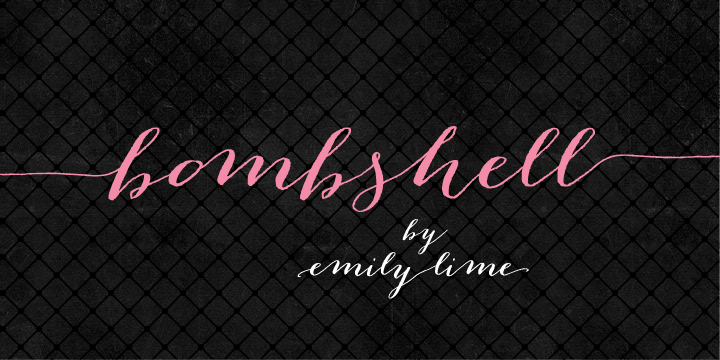
Please note, you must purchase this font for commercial use. You can download Bombshell Pro Font Free Download for testing purposes and explore its elegant, script design. Bombshell Pro Font is perfect for branding, wedding invitations, greeting cards, and any project that requires a sophisticated, handwritten touch.
With its flowing curves and intricate detailing, Bombshell Pro Font adds a sense of elegance and refinement to your designs. It's ideal for projects that need to convey a sense of luxury, romance, and personal flair, making it perfect for high-end marketing materials and personalized designs.
Bombshell Pro Font Free Download supports multilingual characters, making it versatile for global projects. Its beautiful script ensures readability, even in intricate compositions, while maintaining its graceful, handwritten style.